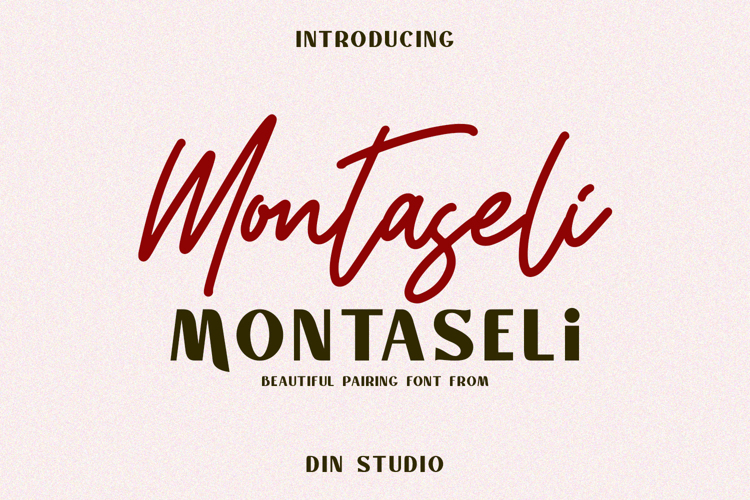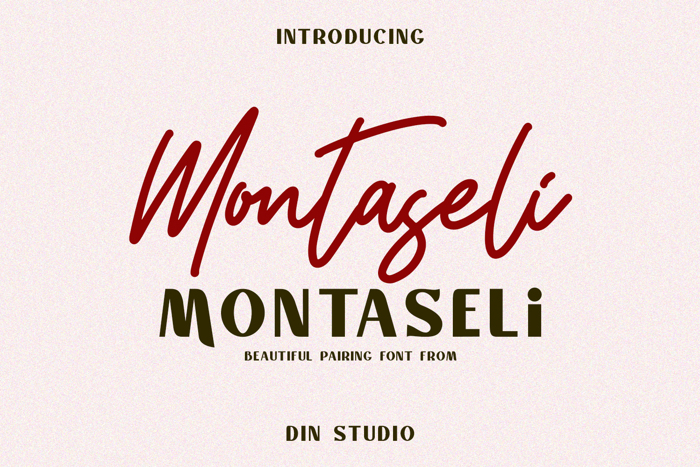
Montaseli Script Font
Script Style
Sans Style
Montaseli – Font Duo. It is a beautiful pairing font from Din Studio designed with a modern and bold style. The font is suitable for brandings, logos, social media campaigns, ads, book covers, cards, invitations, quotes, and more.
Features include:
• Alternates
• Ligatures
• Multilingual Supports
• PUA Encoded
• Numerals and Punctuations